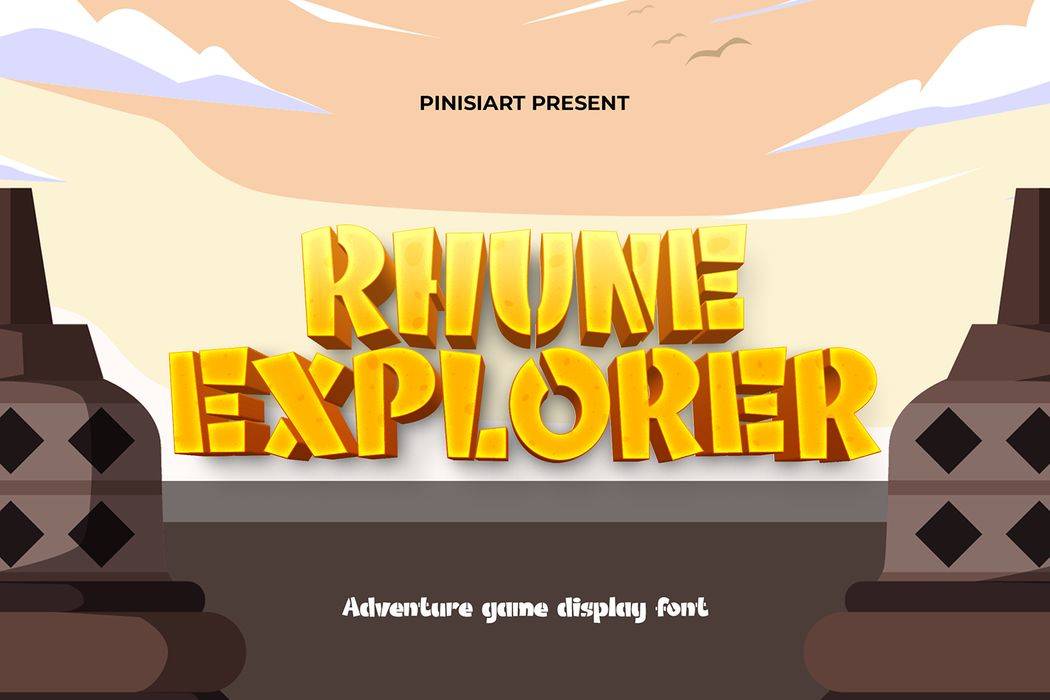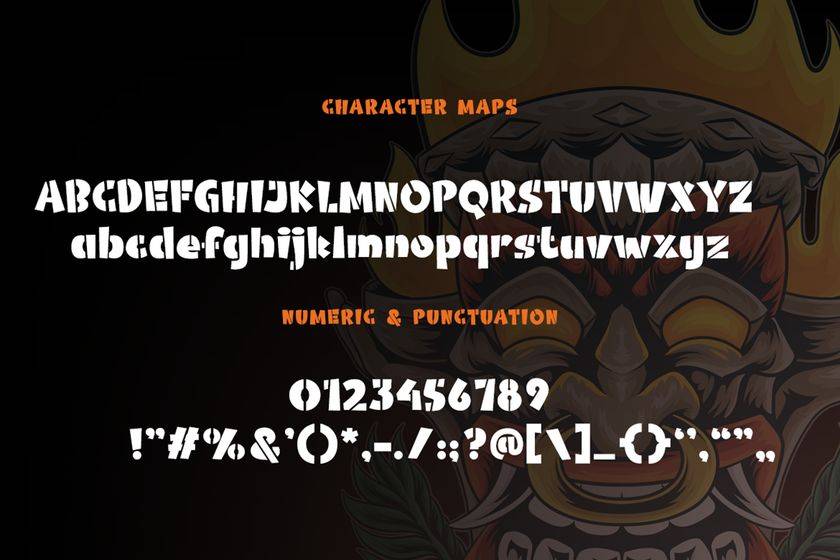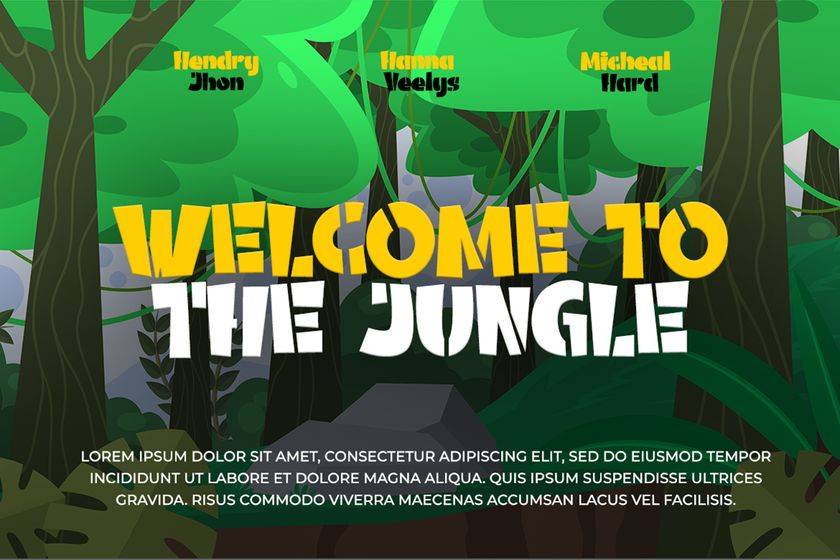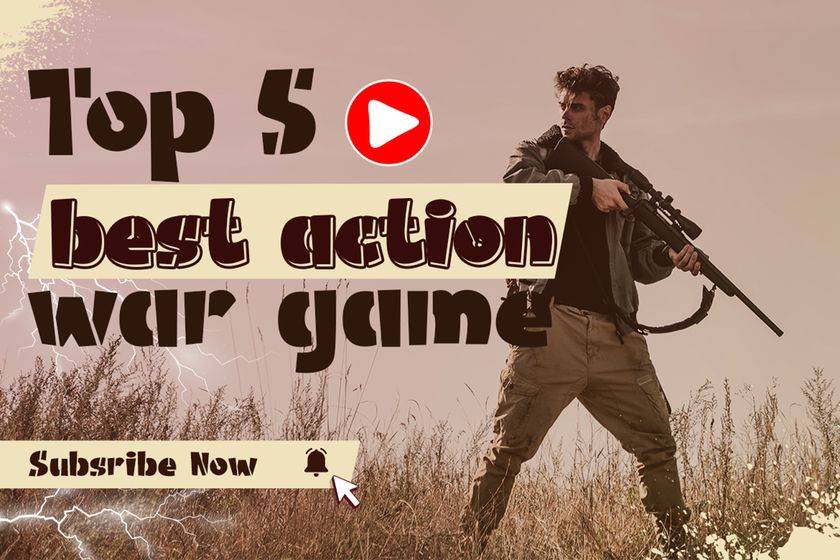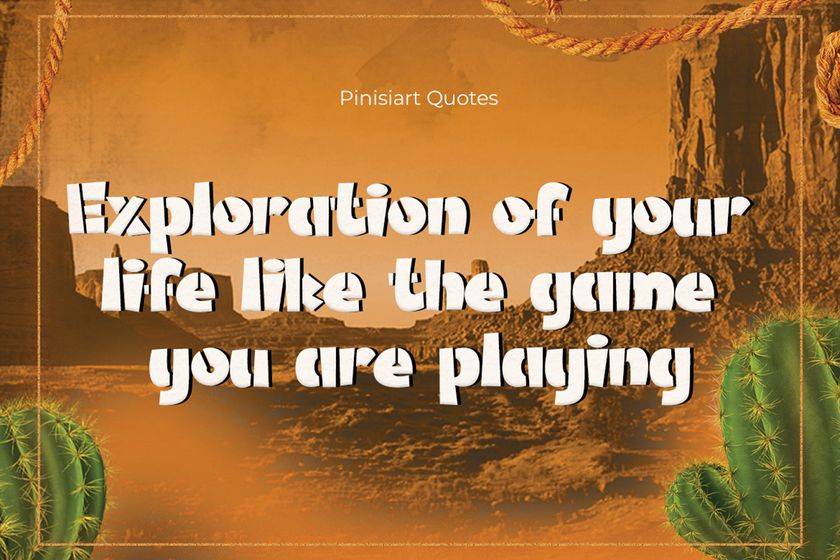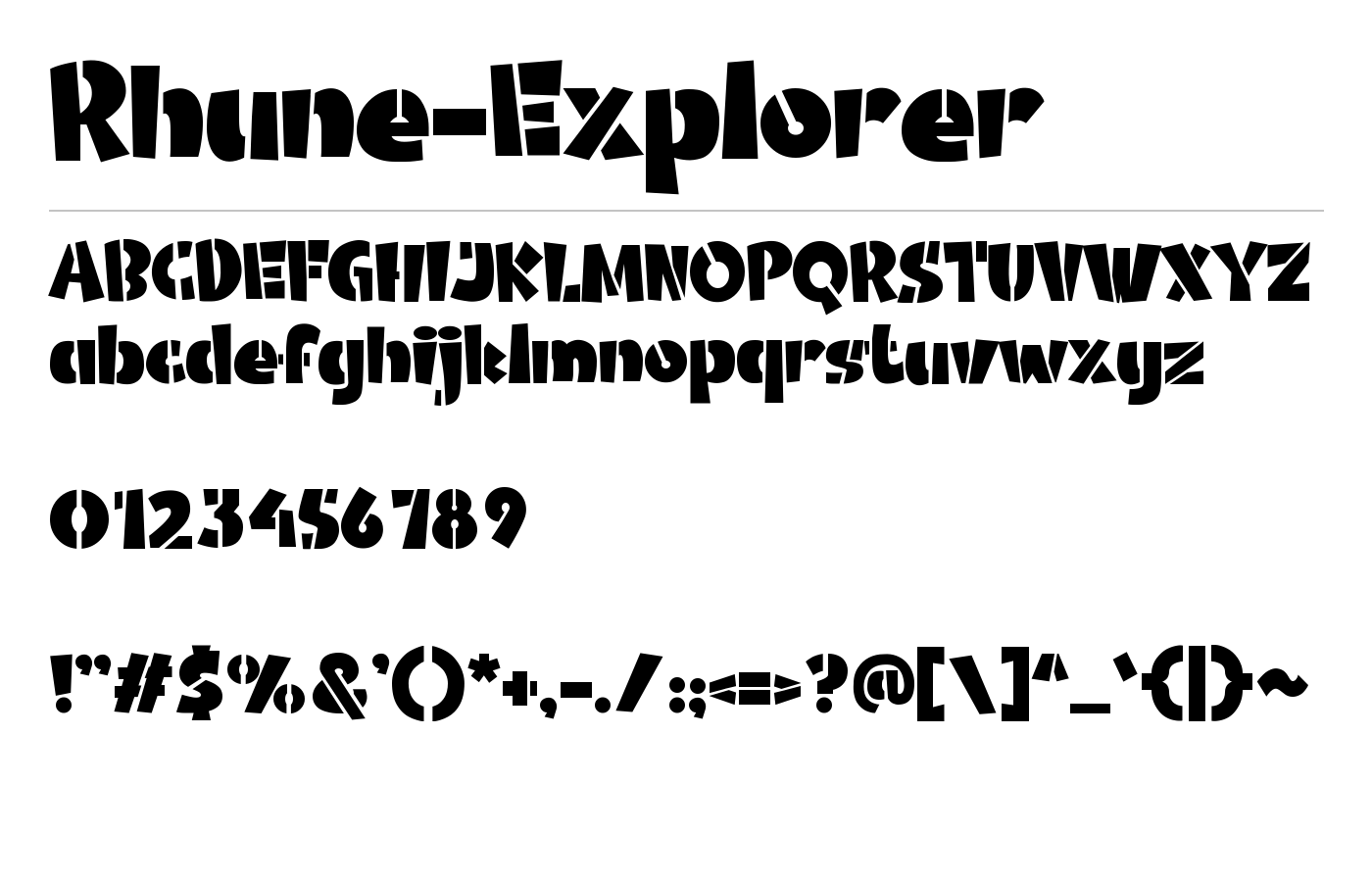
Rhune Explorer is a bold and quirky sans-serif font with a playful, hand-cut stencil style that features strong geometric shapes and distinctive split strokes. Its chunky, slightly irregular letterforms create a lively and adventurous vibe, making it ideal for eye-catching headlines, posters, and branding that want to convey creativity and fun. This font works especially well for projects that seek a youthful, energetic personality with a unique, artisanal touch.
Rhune Explorer Font
About Rhune Explorer Font